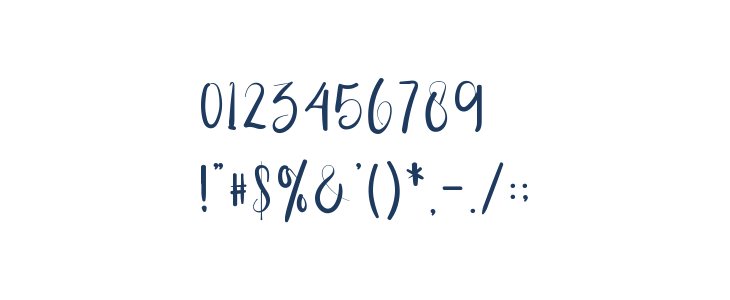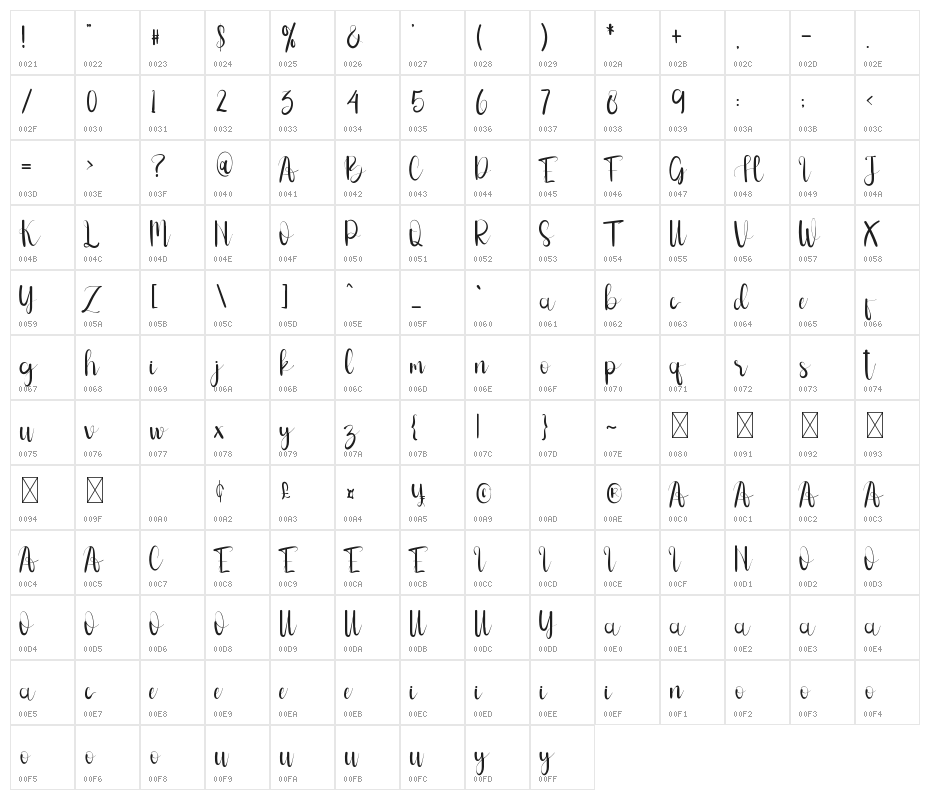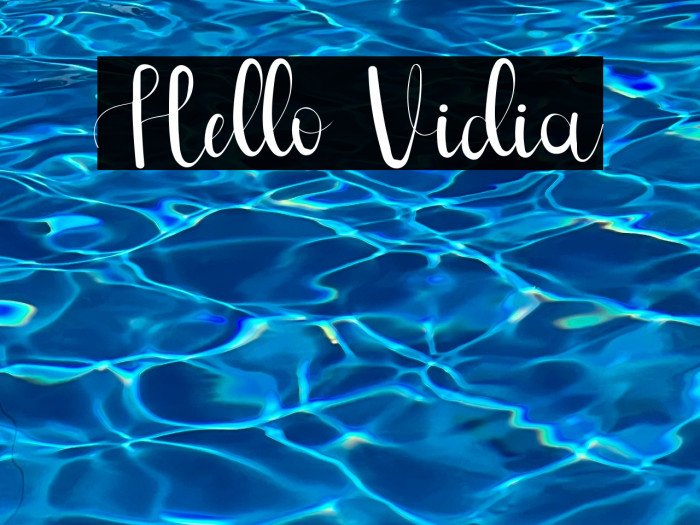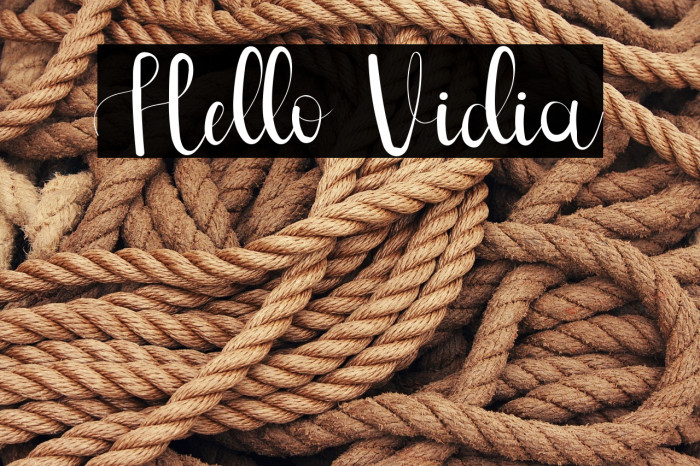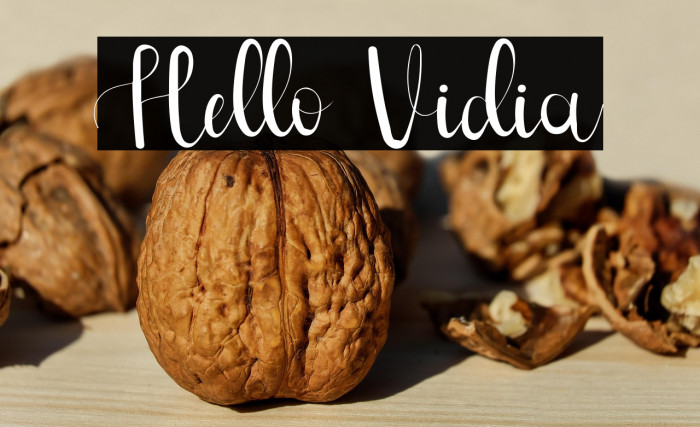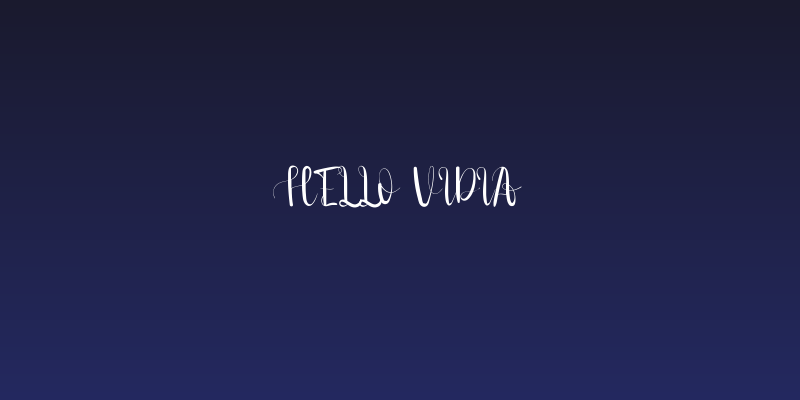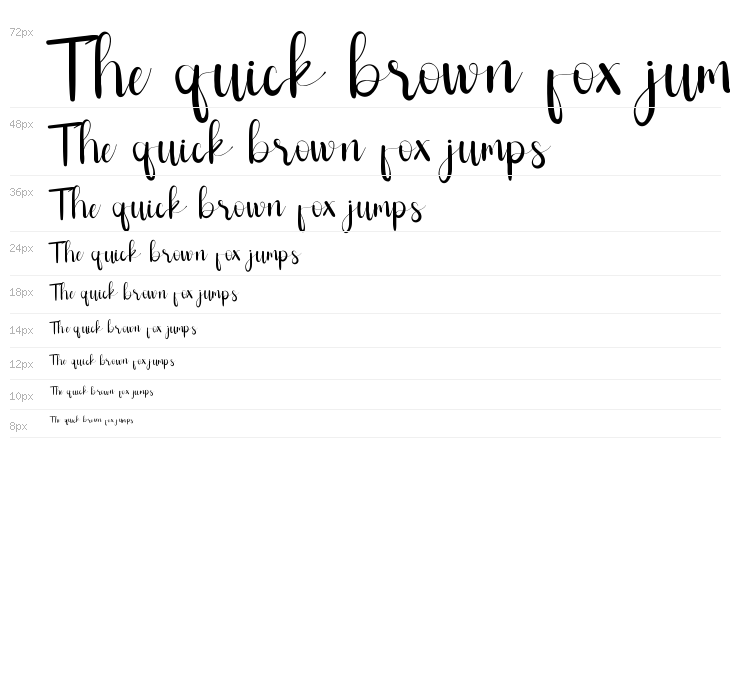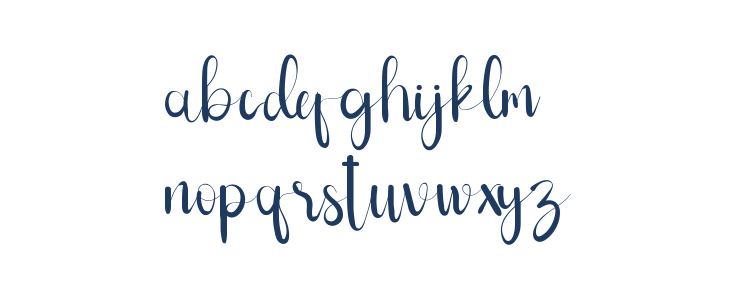
Hello Vidia Font
Hello Vidia Description
This font features a playful and artistic script style with a handwritten feel. The characters are fluid and dynamic, with varying stroke thickness that adds a lively and whimsical touch. The uppercase letters are bold and expressive, while the lowercase letters maintain a consistent flow, creating a harmonious balance. The numbers and special characters are designed to complement the overall style, making it suitable for creative and informal projects. The font's unique charm lies in its ability to convey a sense of personality and creativity, making it ideal for projects that require a personal touch.
| Use Case | Logos, Headlines, Creative projects |
| Proposed Projects | Greeting cards, invitations, personal branding, creative posters, and social media graphics. |